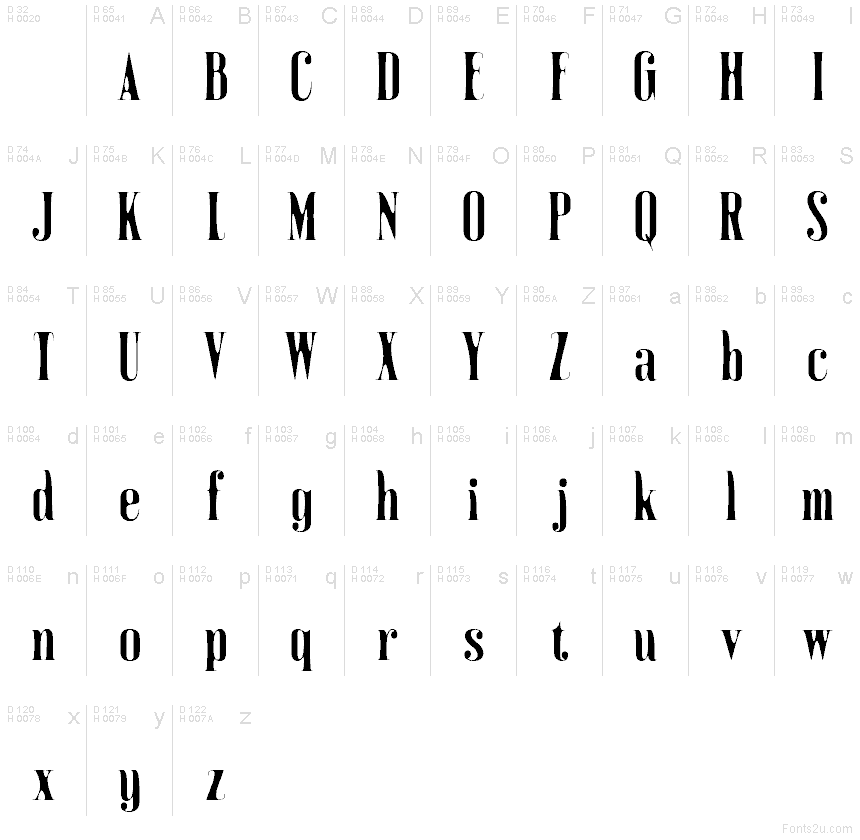
CSDiplomaDrawn-Regular Demo
CS Diploma Drawn font by Craft Supply Co. is a free bold condensed retro serif display font, a standout style from the CS Diploma family. Built around lively, hand-drawn contrast, it stands out with tall, ribbon-like strokes, flared terminals, and subtly inky edges that feel tactile rather than polished. The condensed rhythm saves space without losing drama, so headlines stack neatly while still reading with a rich, vintage pulse.
Using CS Diploma Drawn, posters, liquor labels, book covers, cafe menus, event titles, and album art gain a stately, handcrafted presence. The tight verticals and textured curves add gravitas at a glance, while the narrow width keeps layouts efficient. It shines on large sizes; add a touch of tracking for clarity, and pair with a clean geometric sans to let this free font’s character lead.